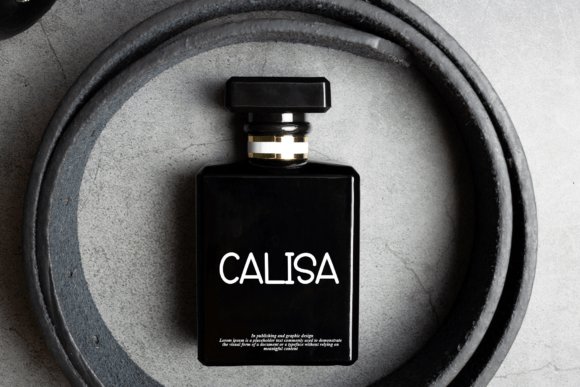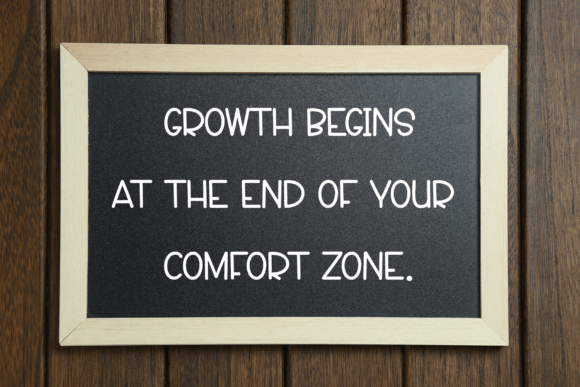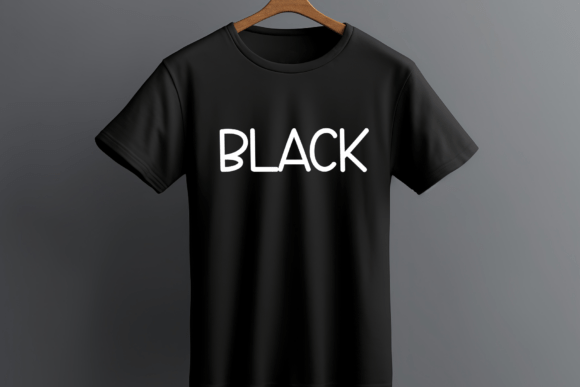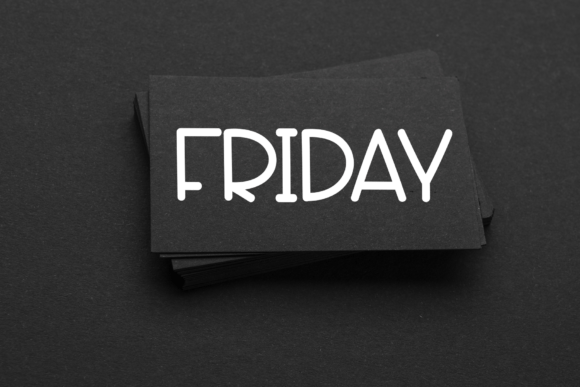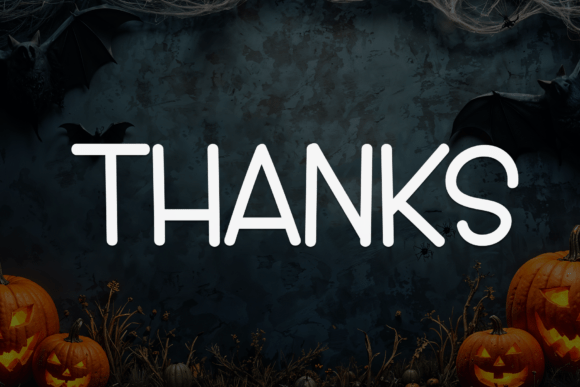
Happy Halloween Font: Add a Spooky-Playful Touch to Your Seasonal Designs
Are you looking for a font that captures the essence of Halloween while being versatile enough for year-round creative use? Look no further than the Happy Halloween Font! This creative display typeface is designed to bring a spooky yet playful vibe to your seasonal projects, making it perfect for a wide range of applications.
What Makes Happy Halloween Font Stand Out?
The Happy Halloween Font boasts bold, rounded strokes and a clean style that sets it apart from other Halloween-themed fonts. Its unique design ensures that your projects stand out and grab attention, whether you’re creating party invitations, posters, flyers, or social media graphics.
One of the key features of this font is its versatility. While it’s specifically designed for Halloween, its clean and playful style makes it suitable for use in various creative projects throughout the year. You can use it to add a festive edge to your designs, making them unforgettable and engaging.
The Happy Halloween Font is ideal for various design projects, including:
- Halloween party invitations and event materials
- Posters and flyers for spooky events or promotions
- Greeting cards and holiday-themed stationery
- Banners and signage for Halloween events
- T-shirt designs and other apparel
- Packaging for Halloween-themed products
- Social media graphics and digital content
Whether you’re a designer, crafter, or DIY enthusiast, this font is sure to become a go-to choice for your Halloween and seasonal projects.
Clear Readability and Creative Freedom
The Happy Halloween Font is not only visually appealing but also clear and readable, making it perfect for:
- DIY crafts and handmade projects
- Cricut and Silhouette projects
- Fun logo designs and branding
- Pumpkin-carving guides and tutorials
With this font, you can create a wide range of projects that require both style and substance.
Tips for Using Happy Halloween Font
To get the most out of the Happy Halloween Font, here are some tips:
- Combine the font with other design elements, such as illustrations or graphics, to create visually appealing compositions
- Use the font in combination with other fonts to create contrast and hierarchy in your designs
- Don’t be afraid to get creative and try out new and innovative design ideas
The Happy Halloween Font is a versatile and creative display typeface that’s perfect for adding a spooky yet playful touch to your seasonal designs. With its bold, rounded strokes and clean style, this font is sure to become a staple in your design arsenal. Whether you’re a designer, crafter, or DIY enthusiast, this font is ideal for a wide range of applications, from Halloween party invitations to social media graphics. So why wait? Get creative with the Happy Halloween Font and make your designs unforgettable!